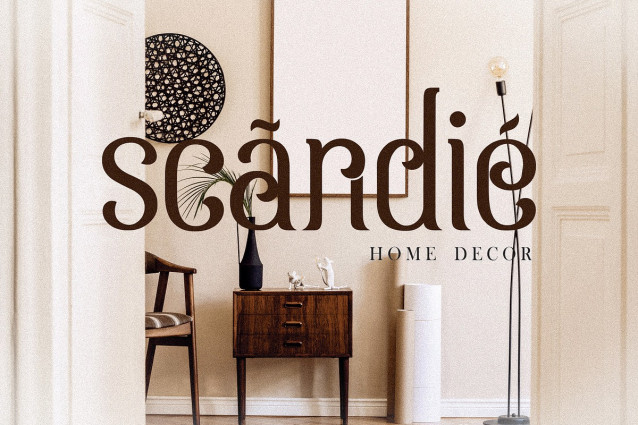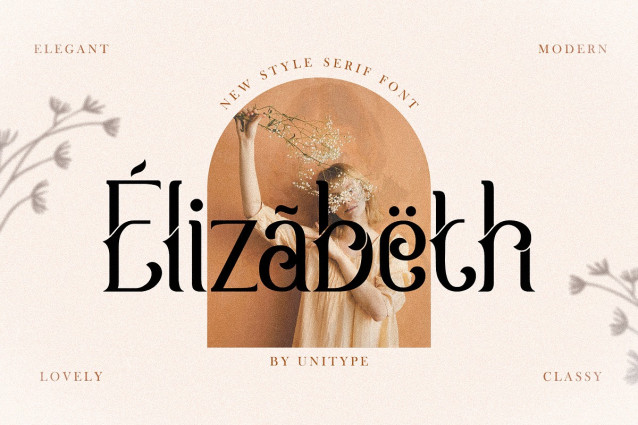
Elizabeth Typeface
Elizabeth Typeface. It is a decorative typeface that has its own unique style & modern look. It’s the perfect fit for all luxury projects, such as wedding invitations, signatures, luxury logos, printed quotes, greetings cards, social media headers, product packaging, and many more!
This font comes with a lot of language support, this font is perfect for you.